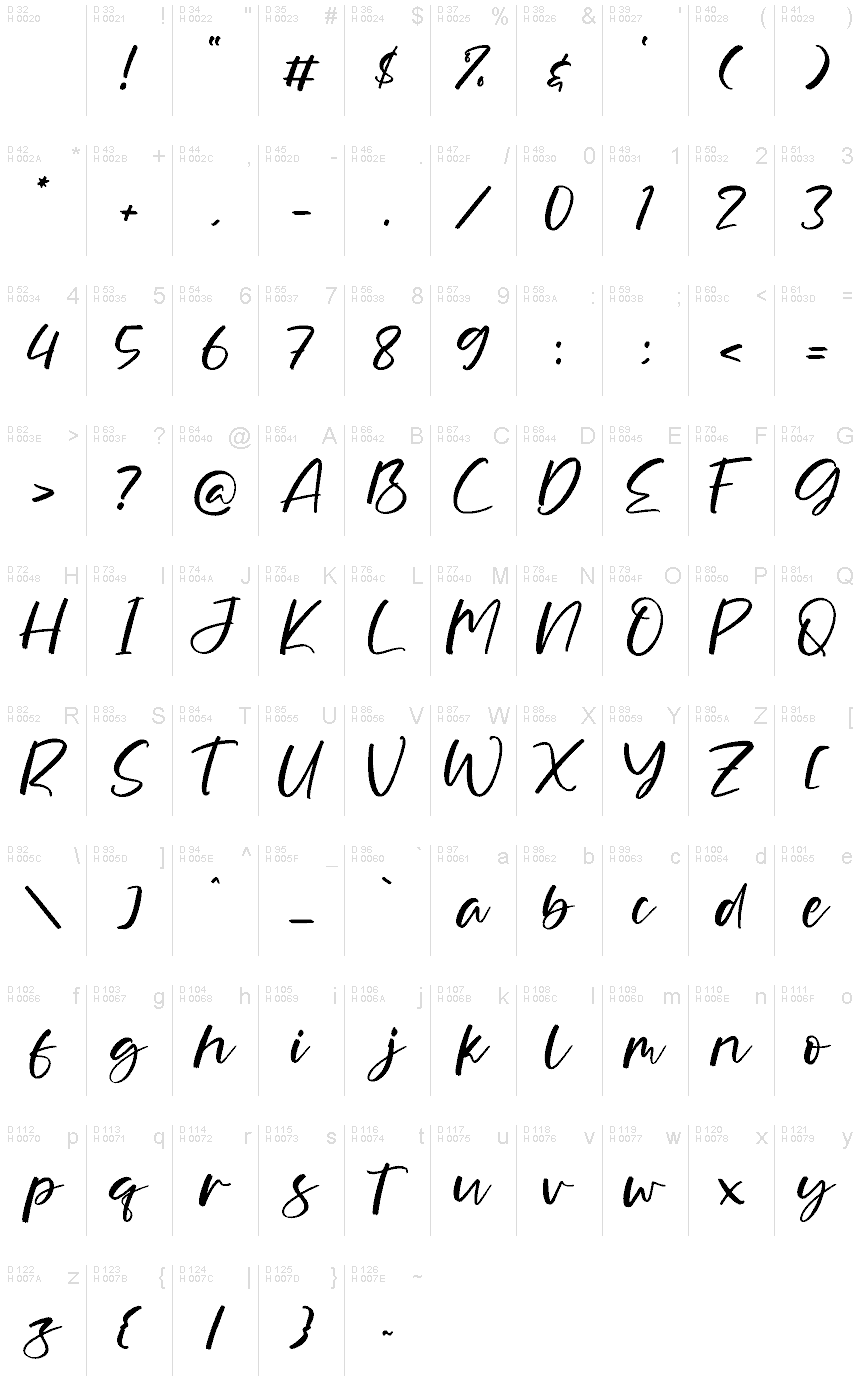
Romario Smithra
Romario Smithra, a new free script font from Letterena Studios, is a beautiful font that looks like it’s been taken straight off of a vintage letter from our grandparents.
It’s a handwritten font that’s perfect for those who love a quirky and a slightly rustic look. This amazing script typeface can be used for your wedding invitations, branding designs, social media quotes, etc.